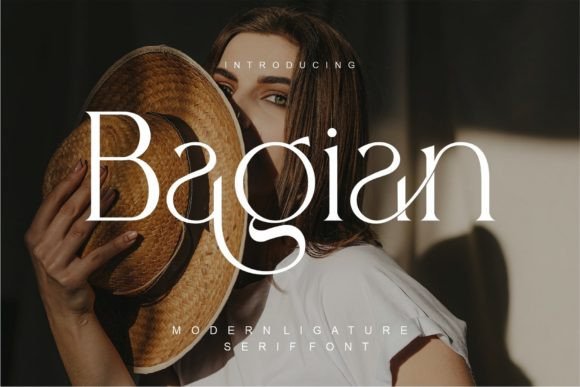
In a world brimming with digital noise, your brand's identity is paramount. Enter Bagian Font, the ultimate serif font designed to elevate your brand to new heights of elegance and sophistication. This masterpiece, crafted by the visionary Alfinart, is more than just a font; it's an artistic expression that captivates hearts and minds.
Bagian's refined lines and delicate curves evoke a sense of luxury and grandeur. Each character is meticulously crafted to exude an aura of sophistication that demands attention. Whether you're a creative professional, a business owner, or a design enthusiast, Bagian Font is your perfect partner in creating stunning visuals that leave a lasting impression.
Unleash the power of Bagian Font in your high-end branding projects, editorial designs, or any endeavor requiring a touch of refinement. Its versatility knows no bounds, allowing you to weave magic into logos, brochures, posters, and more. Let Bagian Font be your secret weapon in capturing the hearts and minds of your audience.
Imagine your brand adorned with the elegance of Bagian Font, attracting clients who appreciate the finer things in life. Elevate your brand's identity to new heights, leaving an unforgettable legacy that speaks volumes about your commitment to excellence.